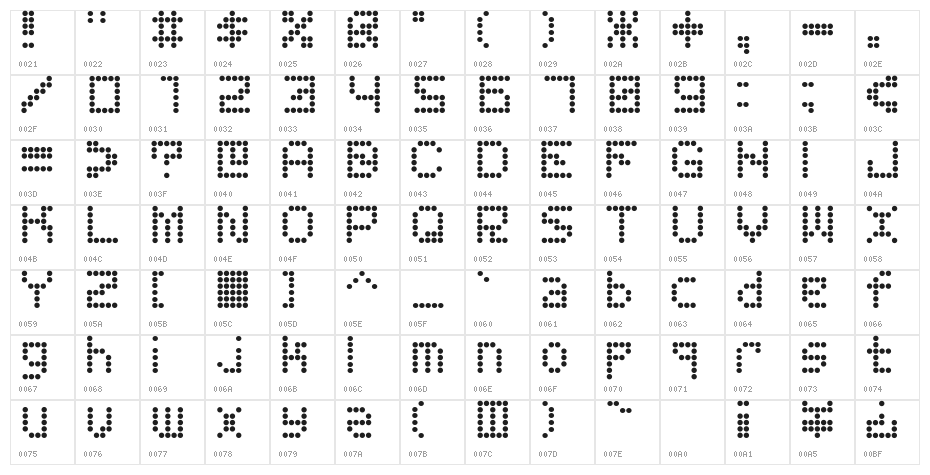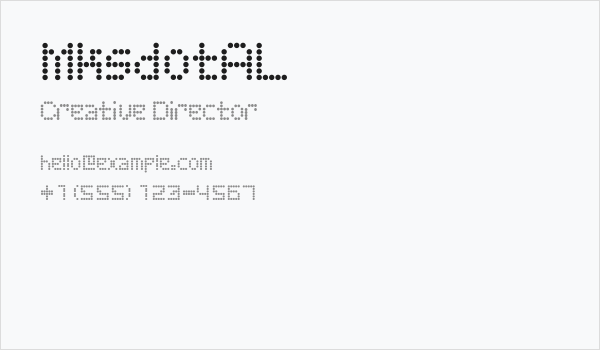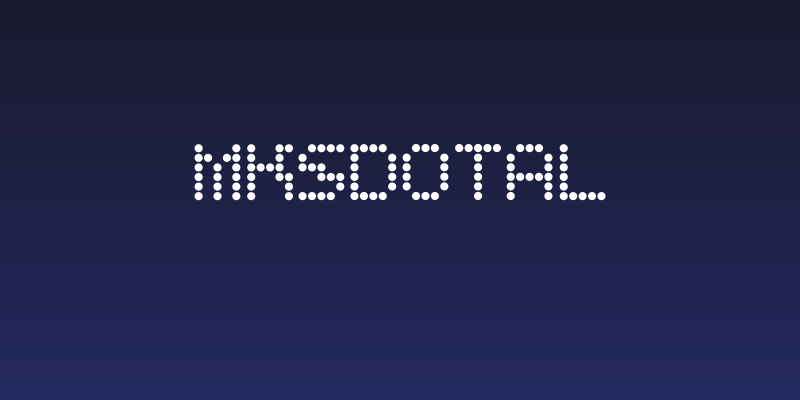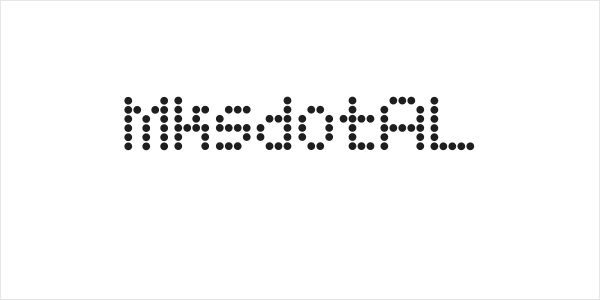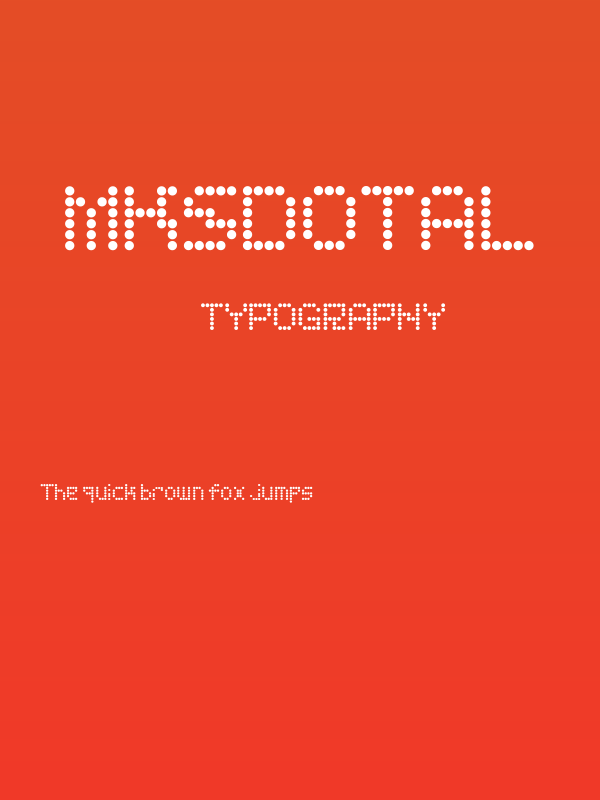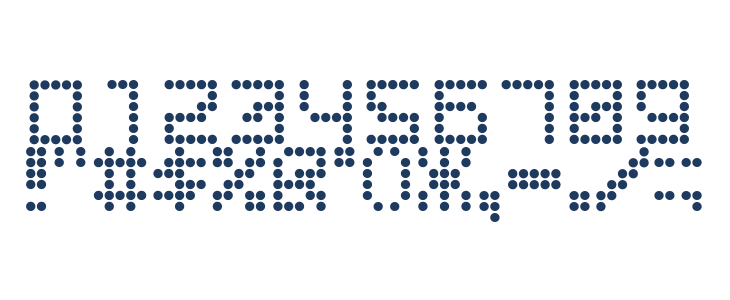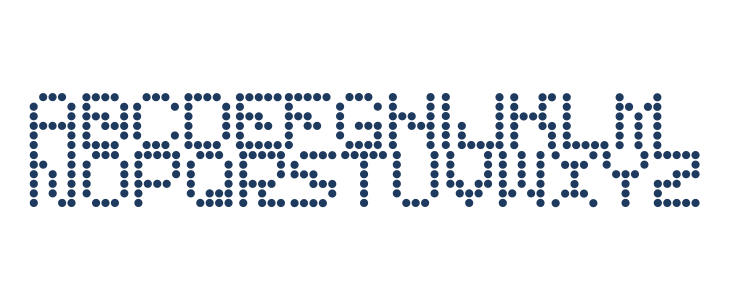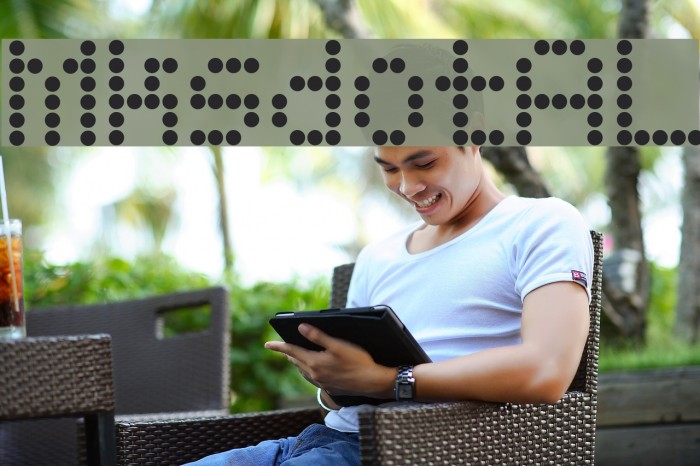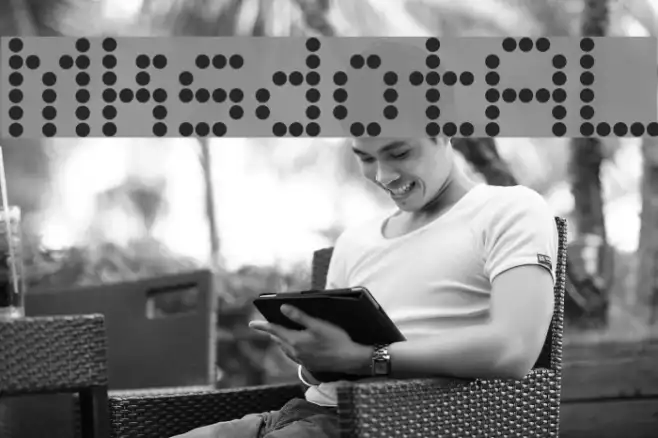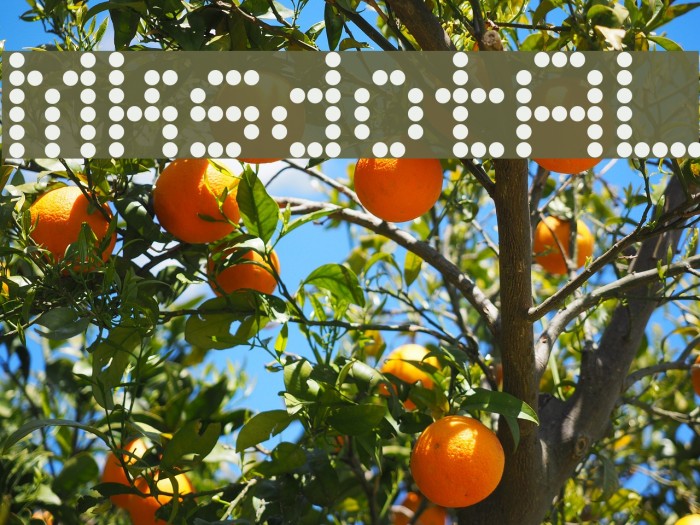
MksdotAL Font
MksdotAL Description
This font features a unique dot matrix design, where each character is composed of a grid of evenly spaced dots. The style is reminiscent of digital displays or retro computer screens, offering a distinct and modern aesthetic. The uppercase and lowercase letters maintain a consistent structure, with rounded edges formed by the dots. Numbers and special characters follow the same dot pattern, ensuring uniformity across all glyphs. The font's playful yet structured appearance makes it suitable for creative projects that require a digital or futuristic touch.
| Use Case | Logos, Headlines, Digital Displays |
| Proposed Projects | Ideal for digital displays, retro-themed designs, tech-related branding, or any project seeking a futuristic look. |